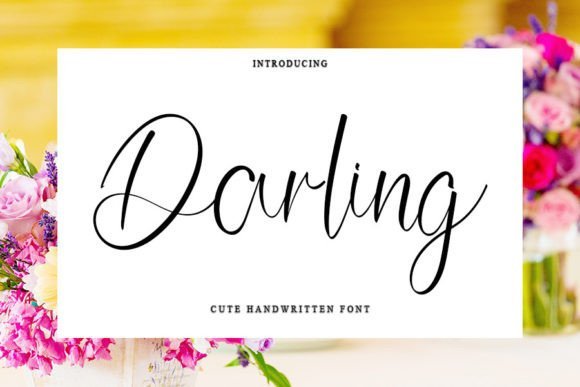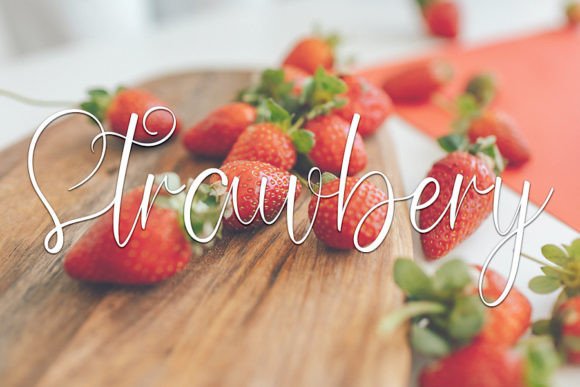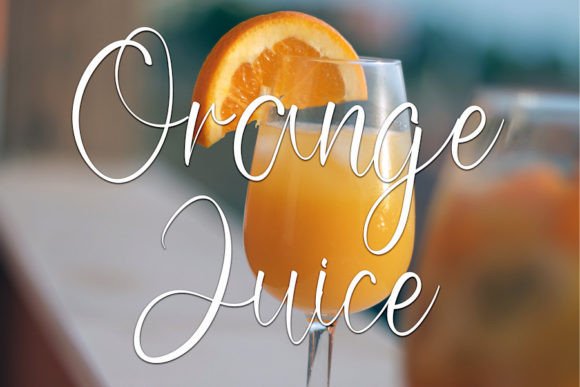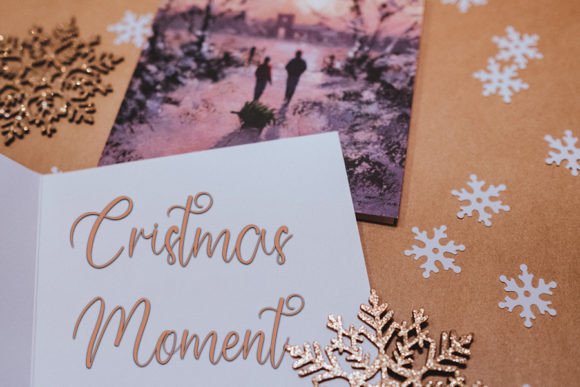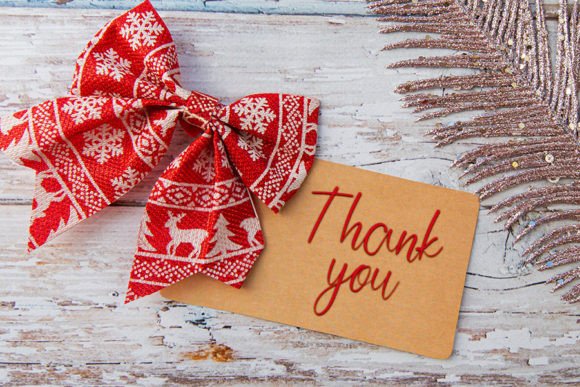
Get Ready to Fall in Love with the Darling Font
There’s something magical about stumbling upon the perfect font for a project – it’s like the pieces of a puzzle finally clicking into place. You envision the design, the words flowing effortlessly, and the overall aesthetic just… working. This is exactly what happens when you discover the Darling Font. With its elegant touch and beautiful handwritten style, it’s the perfect addition to any design project.
The Darling Font is a timeless treasure that will elevate your creations to new heights. Whether you’re a seasoned designer or just starting out, this font is a valuable asset to have in your toolkit. Its distinct style and versatility make it perfect for a wide range of projects, from invitations and quotes to branding and social media graphics.
Darling Font Key Features
- Font Family: Darling Font comes in 4 different font styles – Regular, Italic, Bold, and Bold Italic.
- Character Set: Darling Font supports a wide range of characters, including Latin, Cyrillic, and Greek alphabets, as well as various punctuation and special characters.
- Resolution: Darling Font is optimized for high-resolution displays, including Retina and 4K screens, ensuring crisp and clear text at any zoom level.
- Unique Characteristics: The Darling Font features a unique, elegant design with subtle flair and rounded edges, making it perfect for creative and artistic applications.
Darling Font Review
At first glance, the Darling Font catches the eye with its elegant and refined aesthetic ✨. It’s perfect for designs that require a touch of sophistication and femininity. The font’s smooth curves and delicate flourishes make it an excellent choice for wedding invitations, baby shower cards, or any other occasion that demands a sense of luxury.
However, there are some limitations to consider ⚠️. The font’s lack of bold weights can make it challenging to use in headlines or titles, especially in cases where a bolder font is required. Additionally, the font’s thin lines can sometimes make it difficult to read, particularly at smaller sizes.
In terms of versatility, the Darling Font excels in body text and smaller text sizes ✨. Its readability is top-notch, and the font’s subtle flair adds a touch of personality to any design. When used in combination with other fonts, the Darling Font can create a beautiful harmony of styles.
- Perfect for body text and smaller text sizes
- Elegant and refined aesthetic
- Smooth curves and delicate flourishes
- Lack of bold weights
- Thin lines can make it difficult to read at smaller sizes
Overall, the Darling Font is a lovely addition to any designer’s toolkit, offering a unique and sophisticated look that’s sure to impress. With its limitations in mind, it’s best suited for designs where a more delicate, refined aesthetic is required.
Tips for Getting the Most Out of Darling Font
Use Darling Font for titles, headings, and body text to add a touch of elegance and sophistication to your designs.
Pair Darling Font with bold, sans-serif fonts for a striking contrast.
Darling Font is ideal for:
- Brand logos and identity design
- Magazine and newspaper headlines
- Book covers and book titles
Alternatives to Darling Font for Designers
Great Vibes is a modern, elegant script font perfect for creating a sophisticated and luxurious feel. It is ideal for use in invitations, wedding stationery, and other high-end designs where a touch of class is required.
Compared to Darling Font, Great Vibes is more refined and less whimsical, making it a better choice for formal designs. While Darling Font has a playful feel, Great Vibes exudes sophistication and elegance.
Q: What is the recommended font size for the Darling Font?
The recommended font size for the Darling Font is between 12pt and 24pt, depending on the design application and the desired level of readability. However, you can use the font at any size you prefer, and the font’s legibility will adapt accordingly.